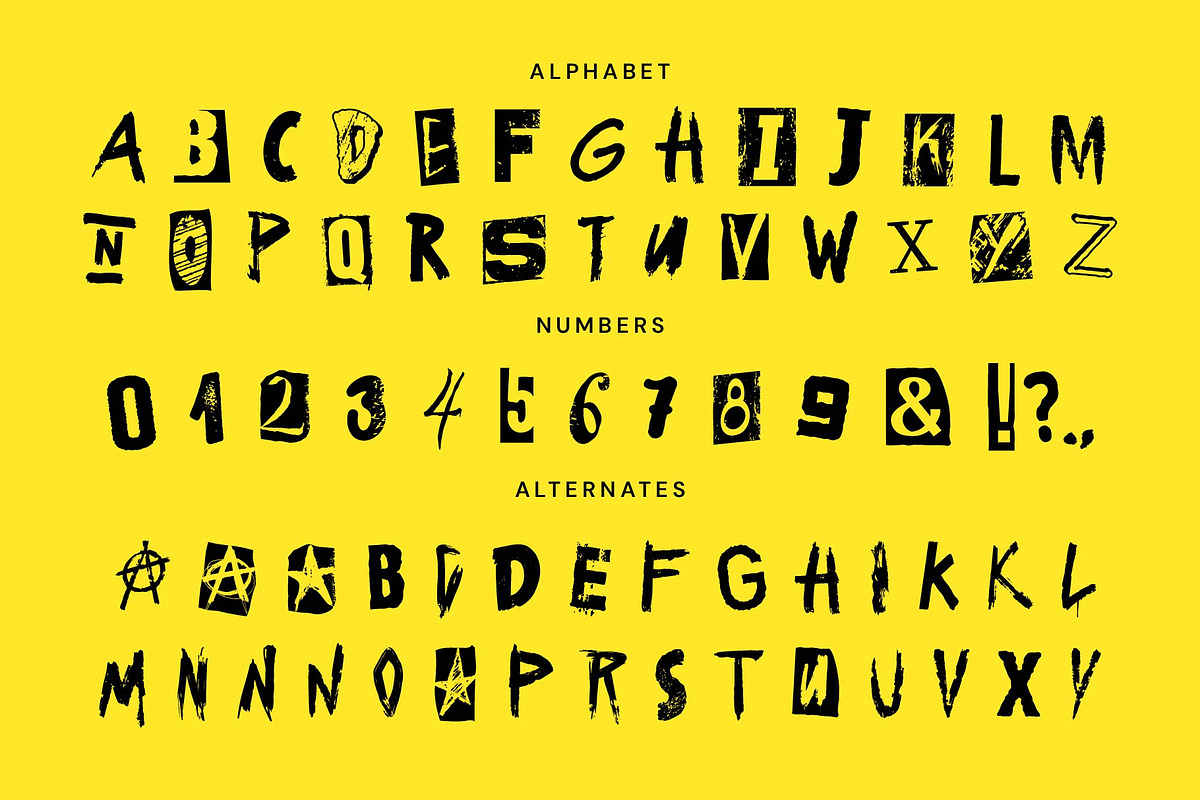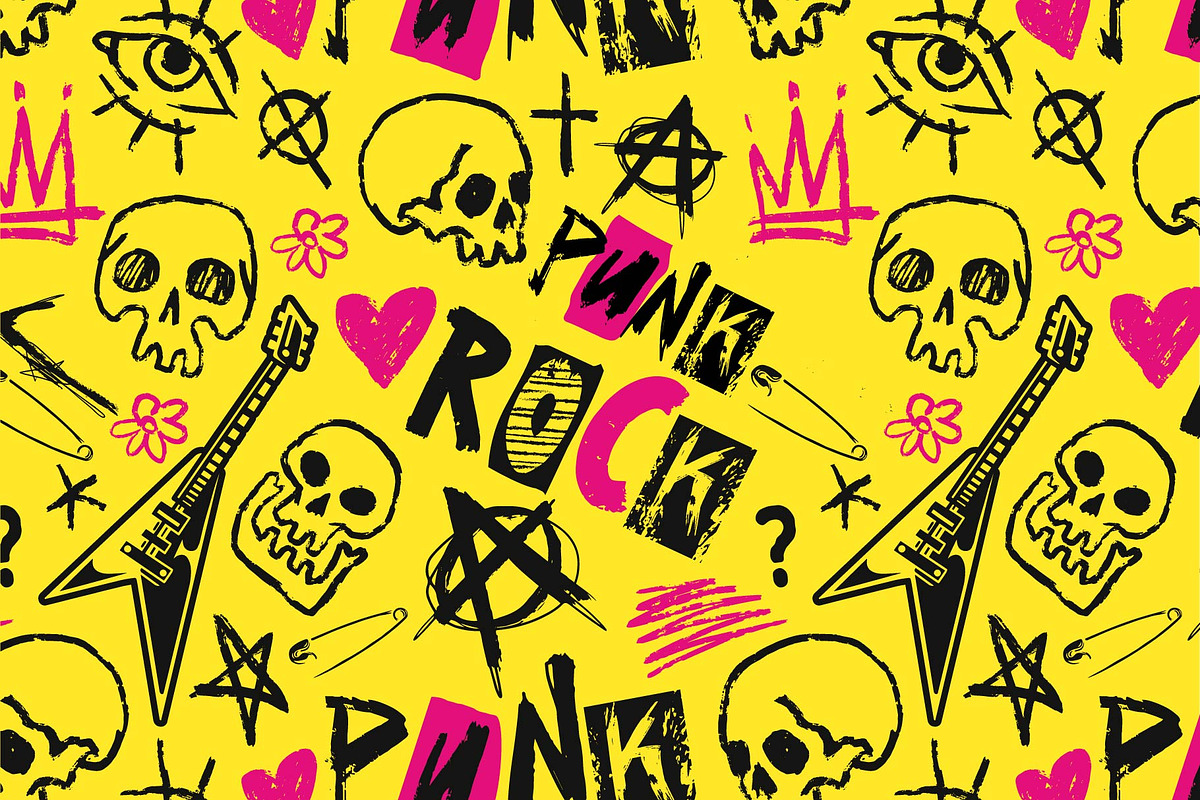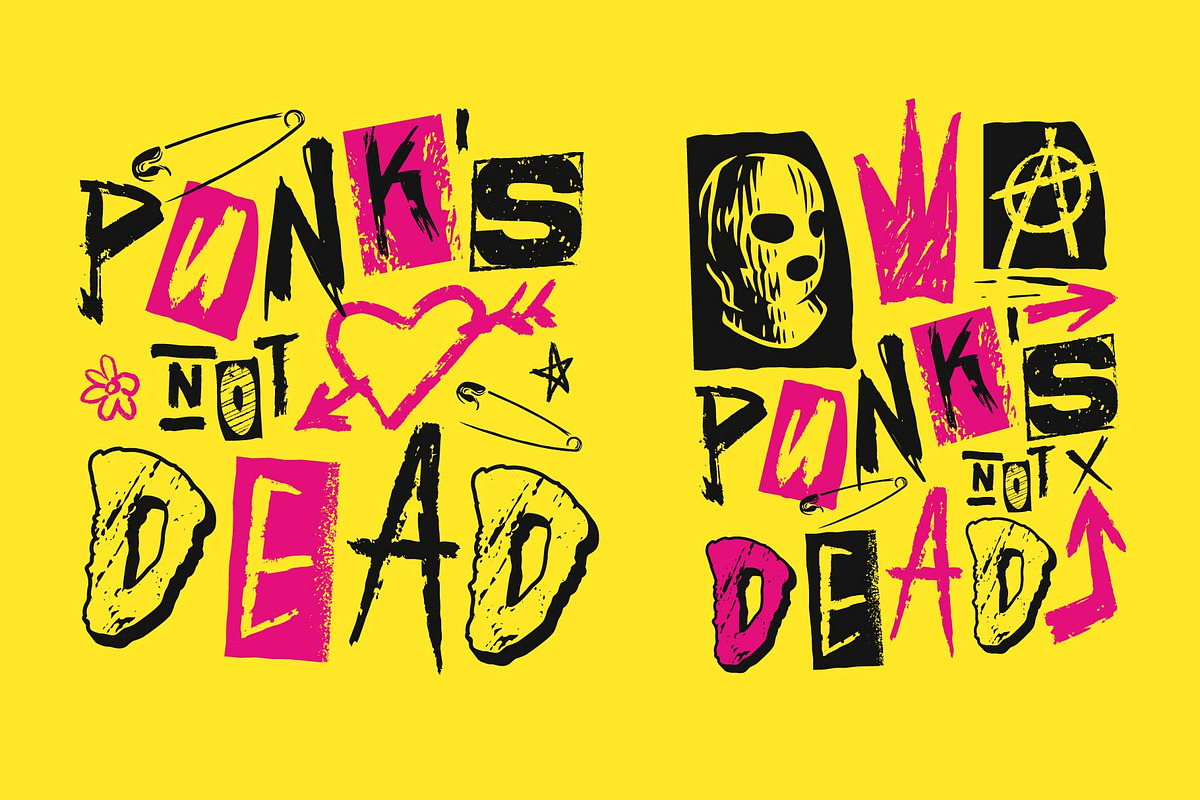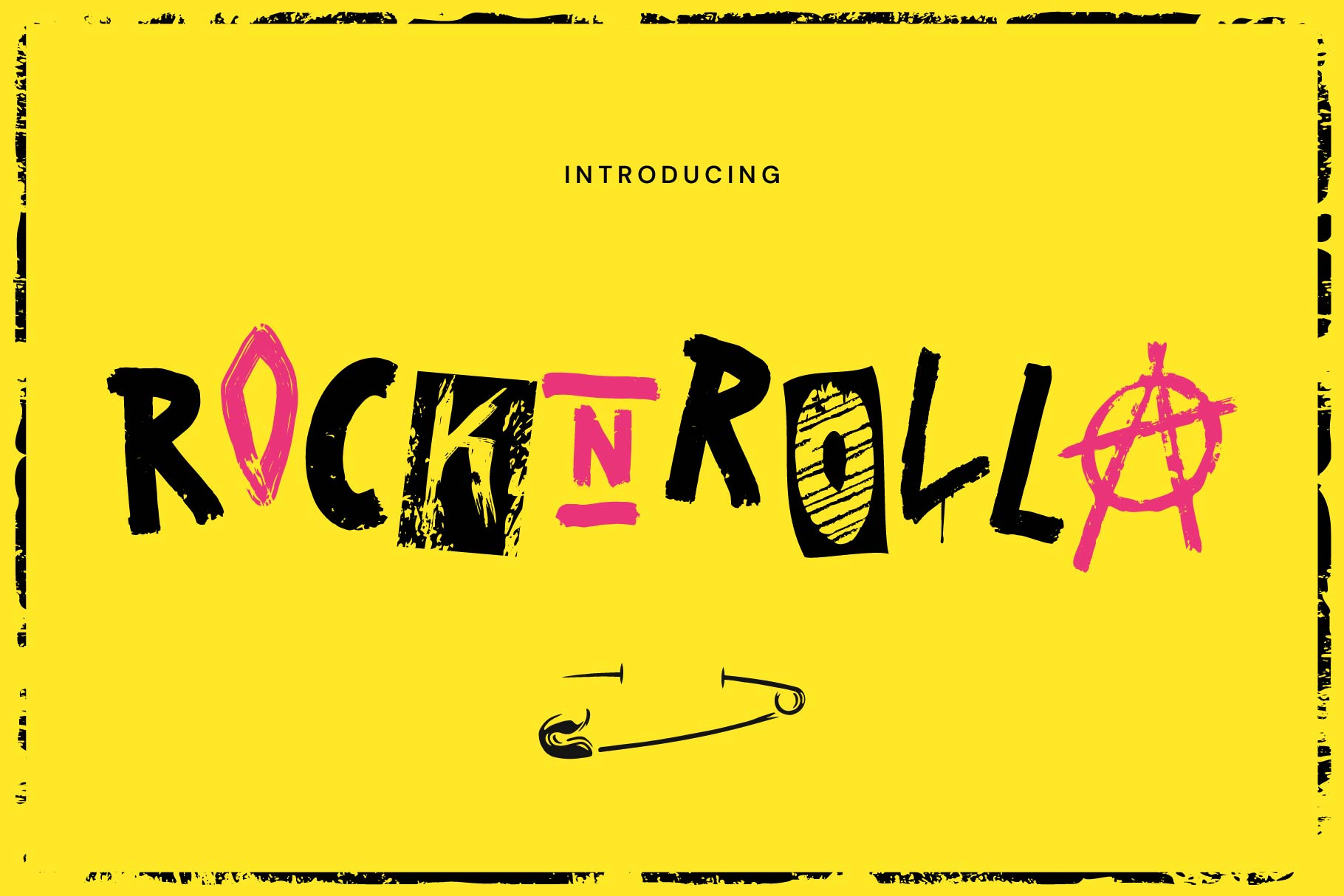
RocknRolla display font
“Rocknrolla” is a bold and dynamic collage-style grunge font that exudes a raw, rebellious energy. This typeface combines handwritten strokes, textured brushed effects, and gritty overlays to create an original and edgy look. Perfect for projects that demand a punk-rock aesthetic, Rocknrolla stands out with its unique grunge texture and chaotic yet balanced design. Whether you’re working on posters, album covers, merchandise, or branding for creative industries, this font captures the spirit of rebellion and individuality. With alternate characters and playful distortions, Rocknrolla delivers flexibility and character, making it ideal for handmade, DIY-inspired designs or bold statements.
Possible Usage: • Music and event posters • Album covers • Fashion branding • Social media graphics • Merchandise and apparel design • Editorial headlines • Street art-inspired projects